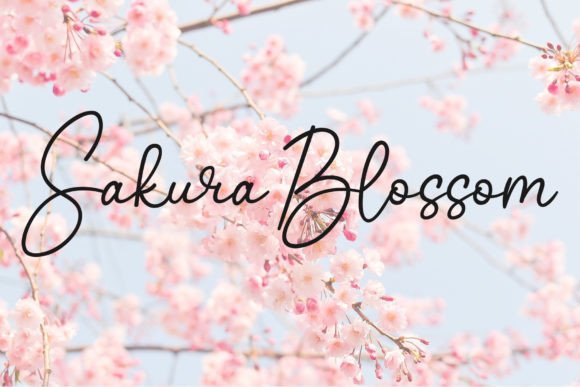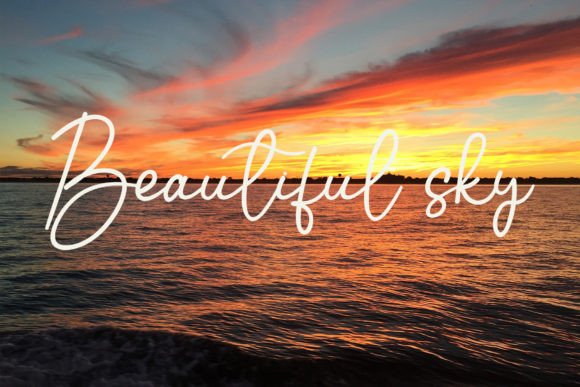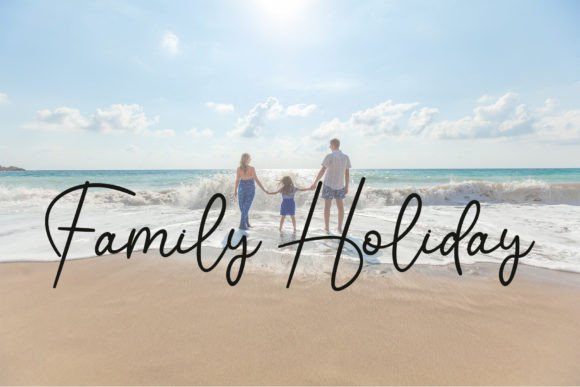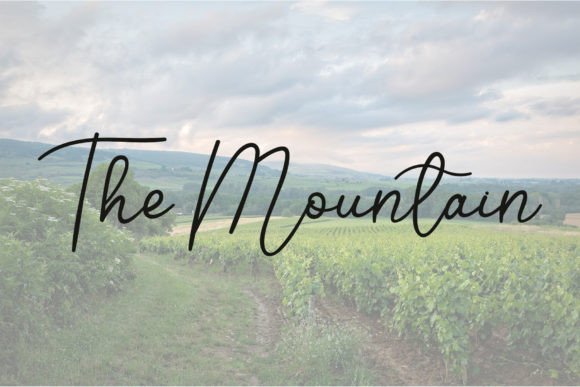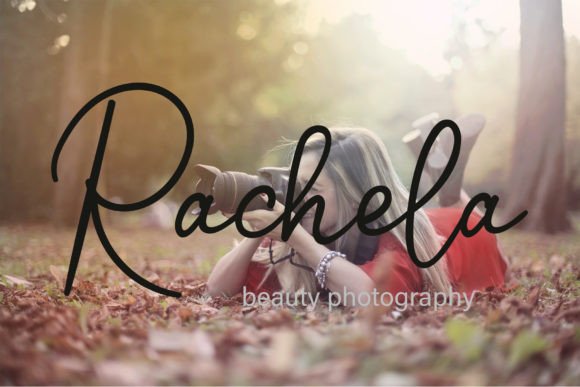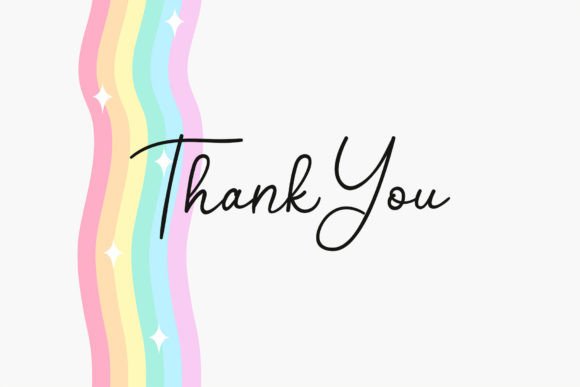
Introduction to Rainbow Handmade Font
Rainbow Handmade is a neat and beautiful handwritten font described by an elegant touch, perfect for your favorite projects.
Fall in love with its incredibly distinct and timeless style, and use it to create spectacular designs .